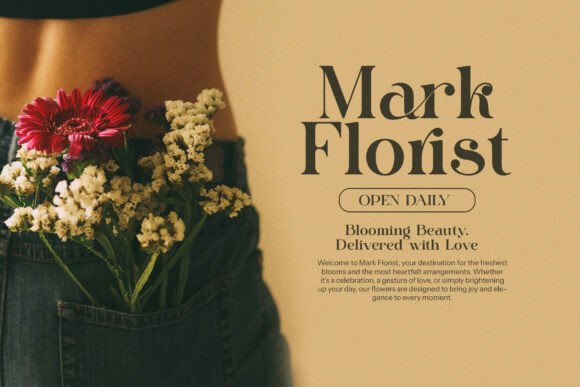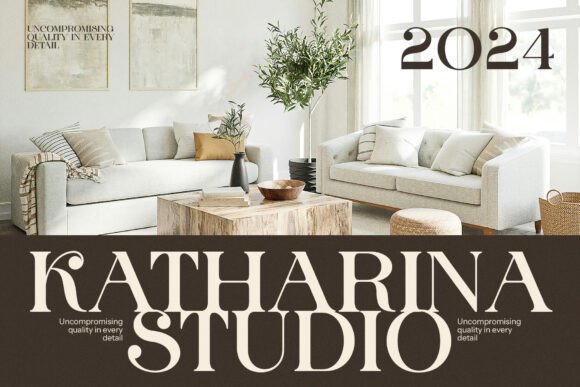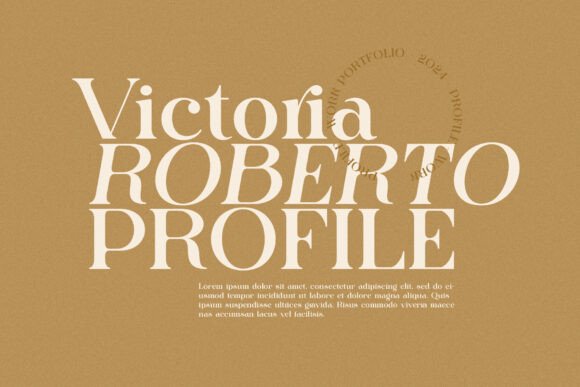
Introduction to Ranig Font
As designers, we’ve all been there – staring at a blank canvas, desperately seeking the perfect font to bring our creative vision to life. It’s the moment when the right typography can make all the difference, elevating our designs from good to great. And that’s exactly where Ranig Font comes in – a sophisticated, high-quality font designed to add a touch of modern elegance to your projects.
With its beautifully crafted ligatures and elegant serif structure, Ranig Font seamlessly blends tradition with contemporary style, offering a fresh and refined aesthetic that’s sure to leave a lasting impression. Whether you’re working on a branding project, designing a magazine, or creating a website, Ranig Font is an ideal choice – and the best part? It’s available for free download, making it a valuable design resource that won’t break the bank.
As a designer, having access to high-quality fonts like Ranig Font can be a game-changer, allowing you to focus on what really matters – bringing your creative vision to life. And with its transparent background, you can easily integrate it into any design project, from product packaging to advertisements. So why settle for ordinary when you can have extraordinary with Ranig Font?
Key Features of Ranig Font
- High-quality design: Ranig Font is a well-crafted font that is perfect for creative projects requiring a unique touch.
- Unique characteristics: The font’s distinctive design and elegant lines make it an ideal choice for creative projects.
- Perfect for design projects: Ranig Font is a valuable design resource that can elevate any creative project with its high-quality design.
Honest Review: Ranig Font
I recently stumbled upon the Ranig Font, and I must say it’s a great addition to my design resource library. The font is a free download, which is always a bonus for creatives working on a budget.
What works well for the Ranig Font is its high quality and versatility. It has a unique, elegant design that makes it perfect for a wide range of creative projects, from branding to editorial content.
One of the standout features of the Ranig Font is its transparent background, which makes it easy to layer over images or other design elements. This level of flexibility is a huge plus for designers who need to be able to adjust their designs on the fly.
- Perfect for branding and editorial content
⚠️ One limitation of the Ranig Font is that it may not be suitable for use in large blocks of text, as it can be a bit difficult to read at small sizes.
Overall, I’m impressed with the Ranig Font and would definitely recommend it to fellow designers. With its high quality, versatility, and transparent background, it’s a great design resource to have in your toolkit. ✨
Ranig Font is a high-quality, free download design resource that can elevate your creative project to the next level. This versatile font features a transparent background, making it perfect for use in various design applications.
Tips for Getting the Most Out of Ranig Font
Experiment with different font sizes, colors, and styles to create a unique and eye-catching design. Use Ranig Font in combination with other design elements, such as images and graphics, to add depth and interest to your project.
Common Use Cases for Ranig Font
Ranig Font is perfect for use in various creative projects, including graphic design, digital art, and print materials. Its transparent background makes it ideal for use in overlays, graphics, and other design elements that require a high level of customization.